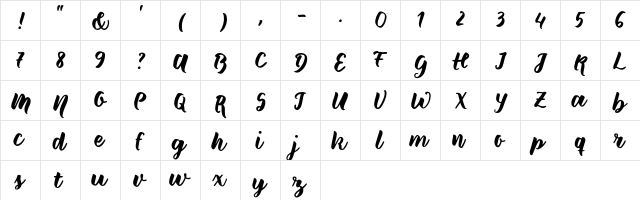
Wild Creatures Sample Regular
| Designer | Ana Parracho |
Design Context for Wild Creatures Sample Typeface
Wild Creatures Sample is a composed and adaptable typeface that performs quietly and consistently across a wide range of design contexts.